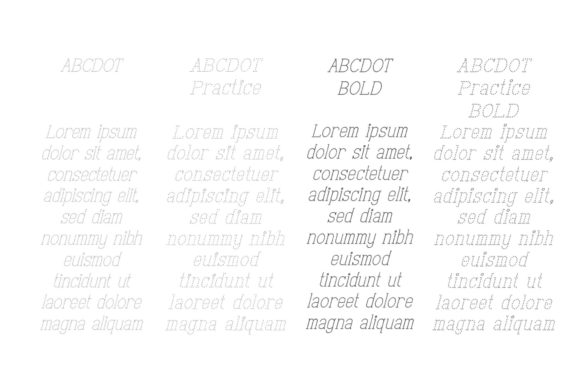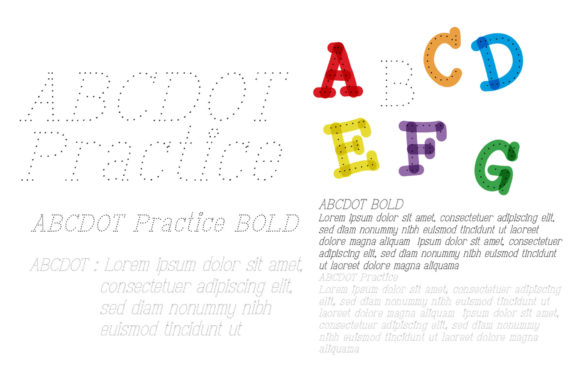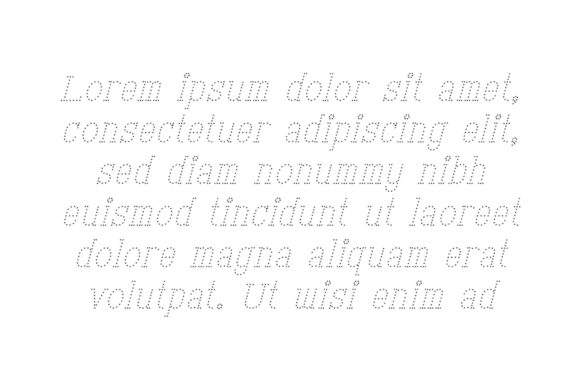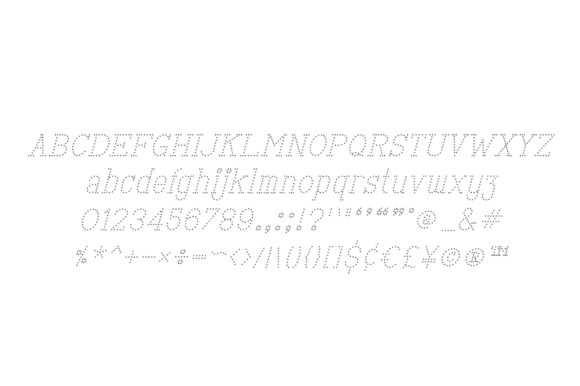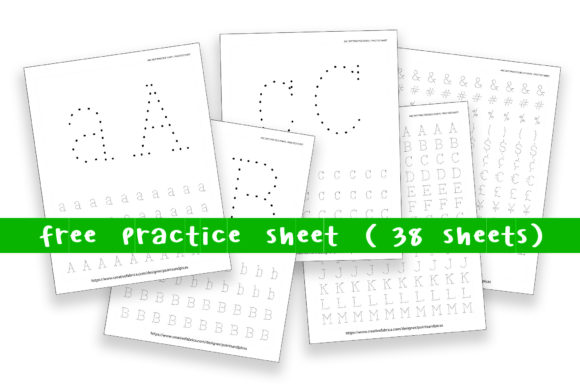
The Ultimate Guide to ABC Dot Practice Italic Bold Font
I’ll never forget the time I was working on a project for a client who needed a font that was both clean and playful. I had spent hours scouring the internet for the perfect font, but nothing seemed quite right. That was until I stumbled upon ABC Dot Practice Italic Bold. It was love at first sight! 💕
ABC Dot Practice Italic Bold is a clean and simple font that is ideal for school work, writing web designs, business cards, or pretty much anything else that requires a cool touch. In this article, I’ll share my honest review of the font, provide a practical guide on how to use it, and explore some similar fonts you might like.
- ✨ Clean and simple design that’s perfect for a variety of projects
- 💡 Great for creating a professional or educational look
- 🎨 Versatile and can be used for both digital and print projects
While ABC Dot Practice Italic Bold is an amazing font, there are a few things to keep in mind. 🤔
- ⚠️ Limited glyphs and OpenType features compared to other fonts
- 🤔 May not be the best choice for projects that require a lot of decorative elements
The story behind ABC Dot Practice Italic Bold is one of creativity and experimentation. The font was designed by a team of designers who wanted to create a clean and simple font that was perfect for educational and professional projects. They drew inspiration from classic dot matrix fonts and added their own unique twist.
| What is ABC Dot Practice Italic Bold? | ABC Dot Practice Italic Bold is a clean and simple font that is ideal for school work, writing web designs, business cards, or pretty much anything else that requires a cool touch. |